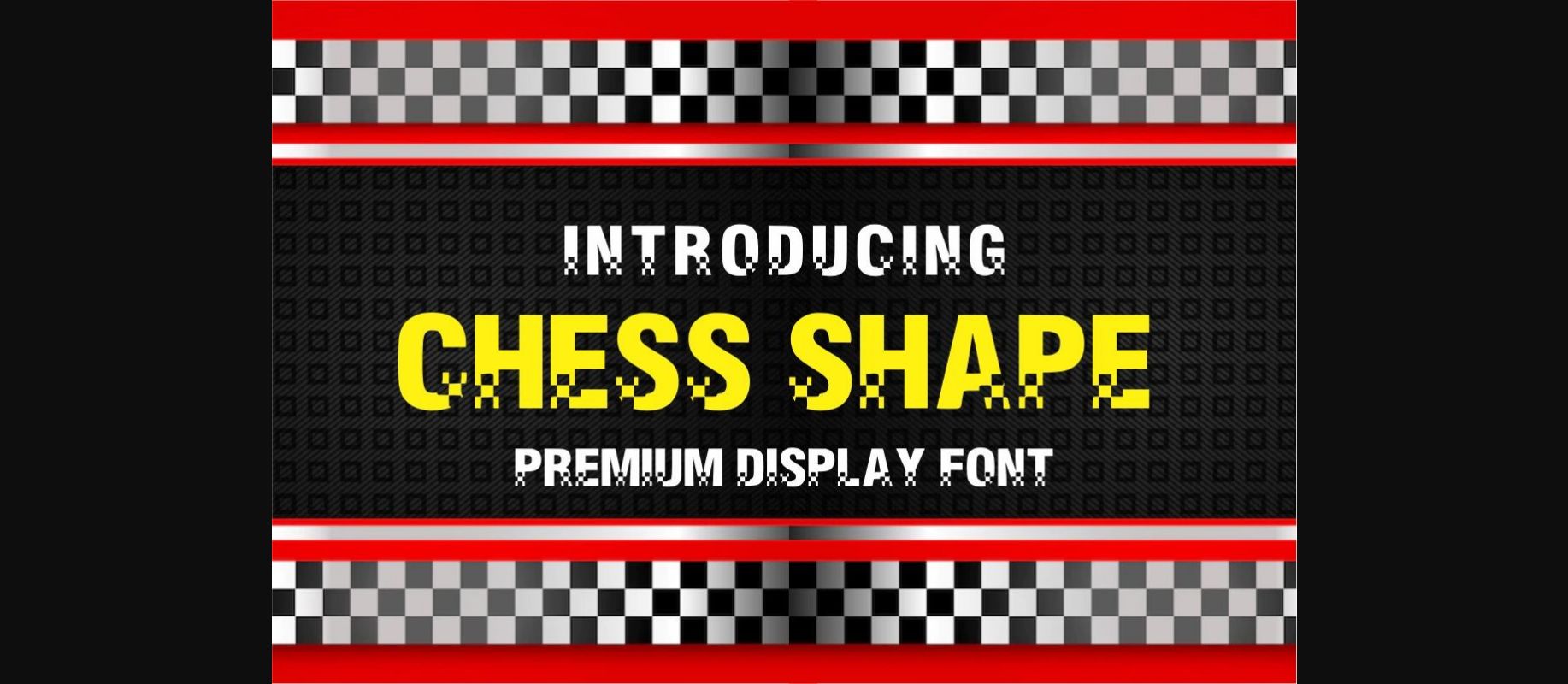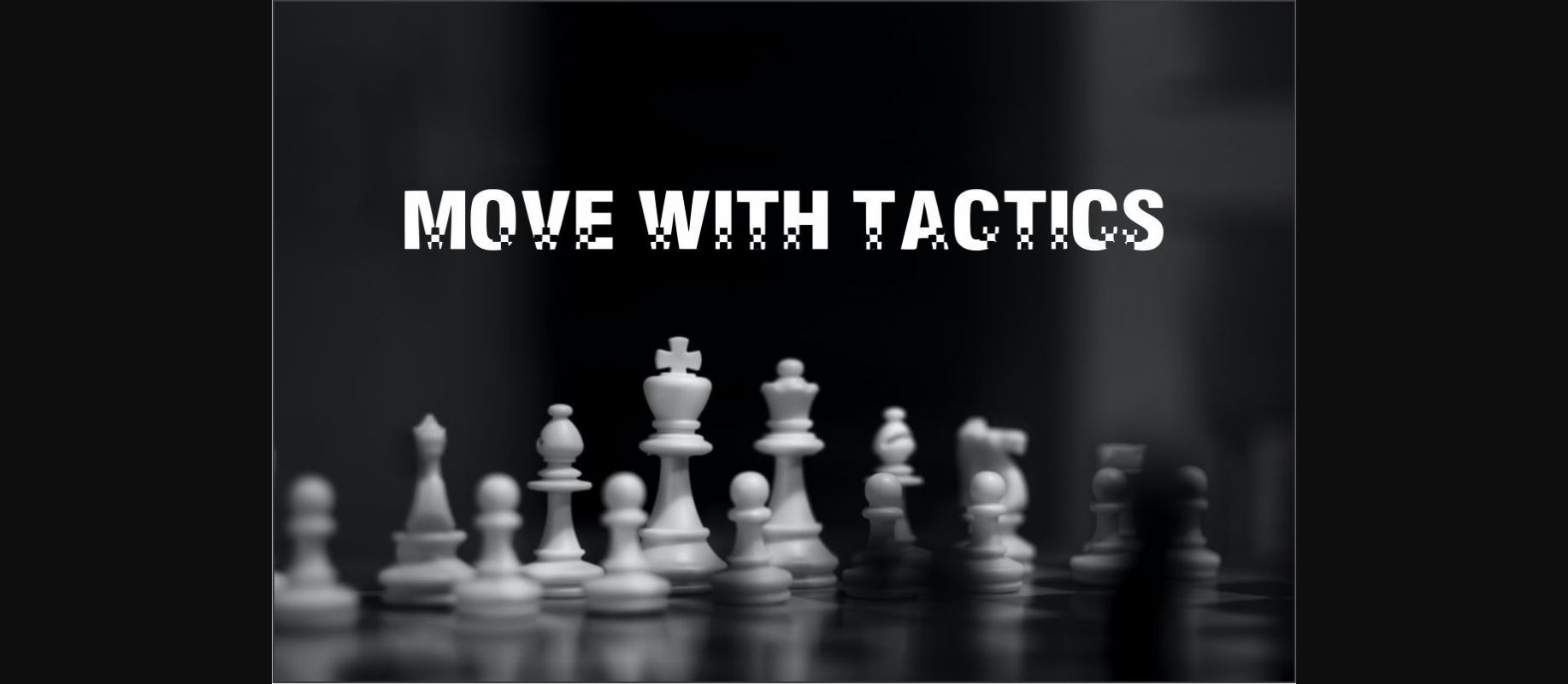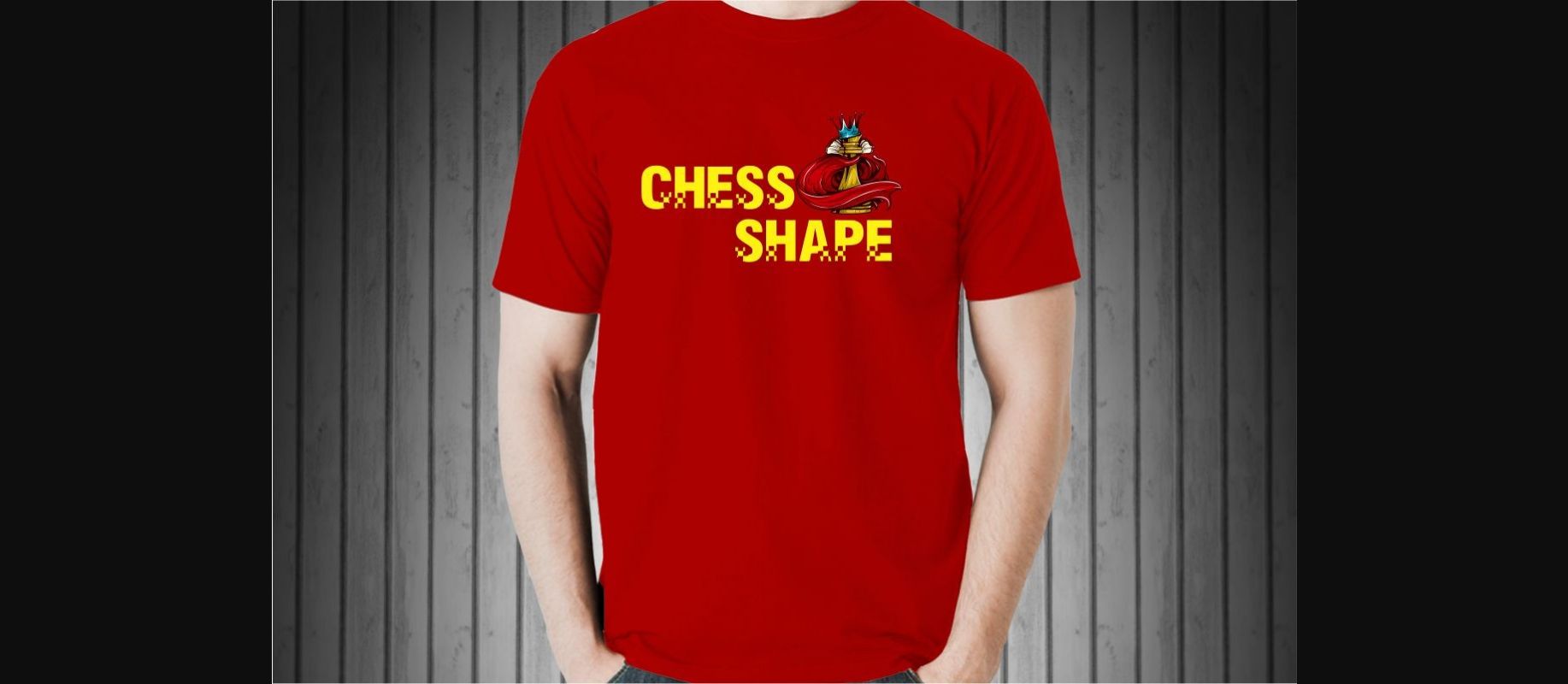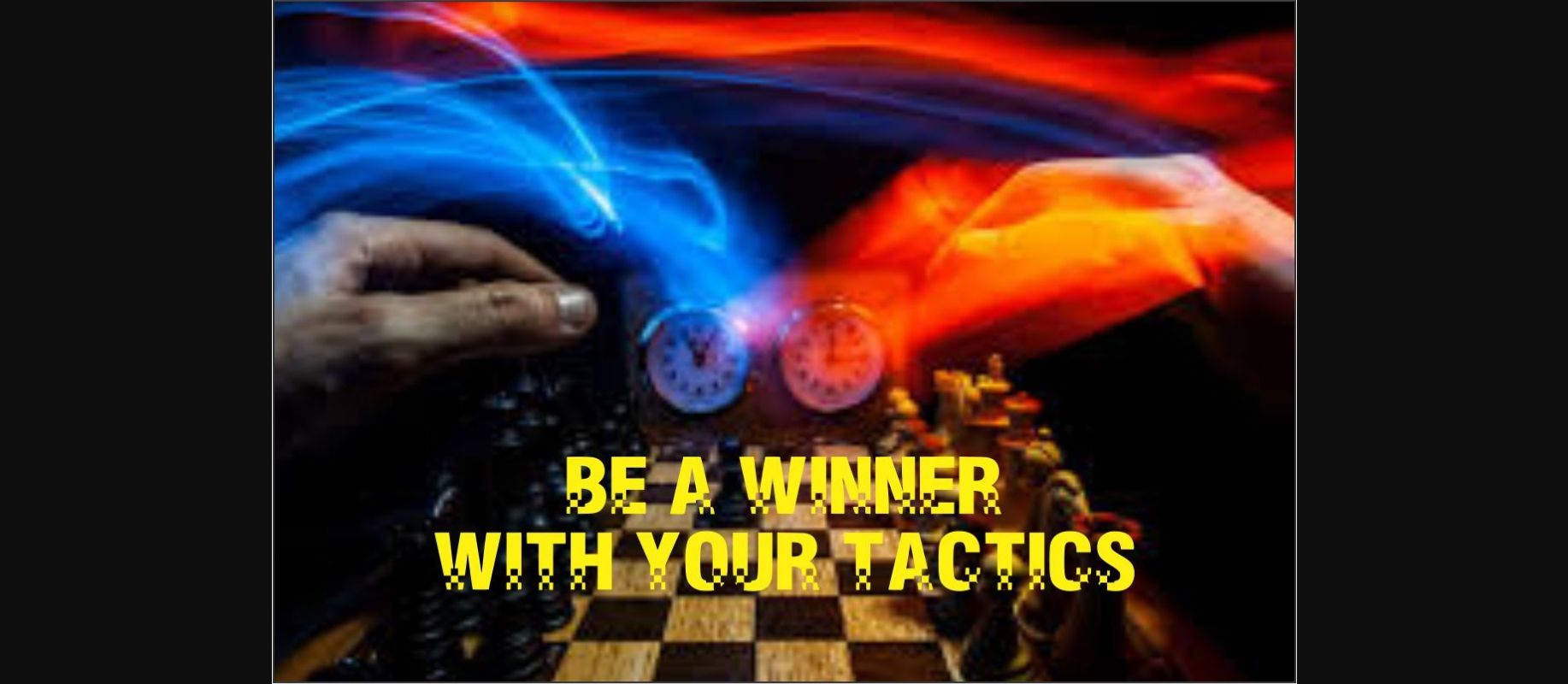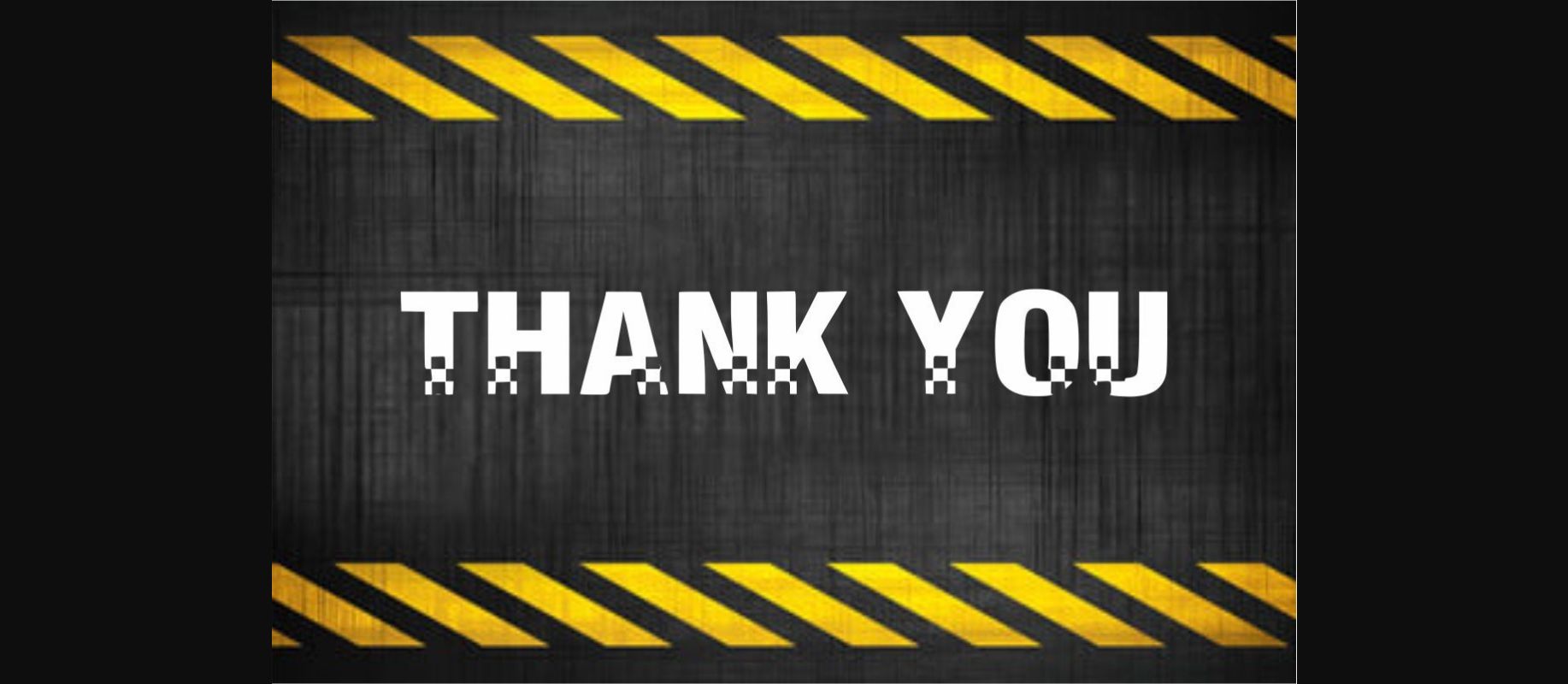
Chess Shape Font
About Chess Shape Font
Chess Shape is a chess-style decorative font that symbolizes tactics and strategy. You can use it for games, chess themes, logos, t-shirts, backgrounds, and more. Add this font to your favorite creative idea, and see how it comes to life!